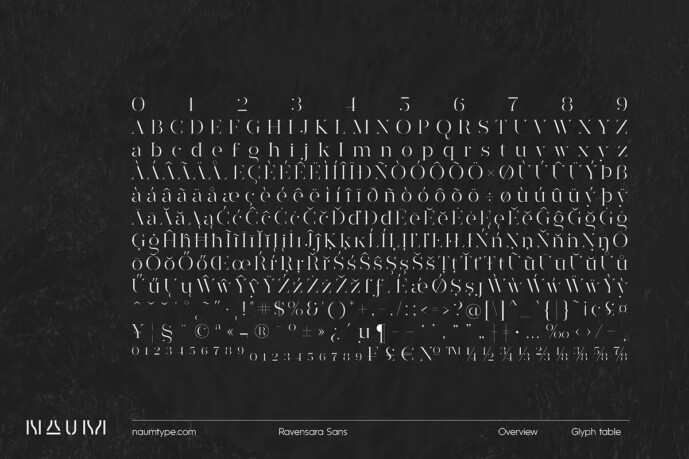
Ravensara Font Family
Ravensara Font Family – elegant high contrast serif with a wide choice of weights. Ravensara Antiqua Stencil is a display font family with 9 weights, from Thin to Extrablack with the highest contrast. This font was inspired by old-style classic typefaces, such as Didone and Baskerville, and got a modern feel by getting rid of unnecessary details and adding stencil elements to it.
Perfect for branding, packaging, headlines, posters, presentations, short texts.